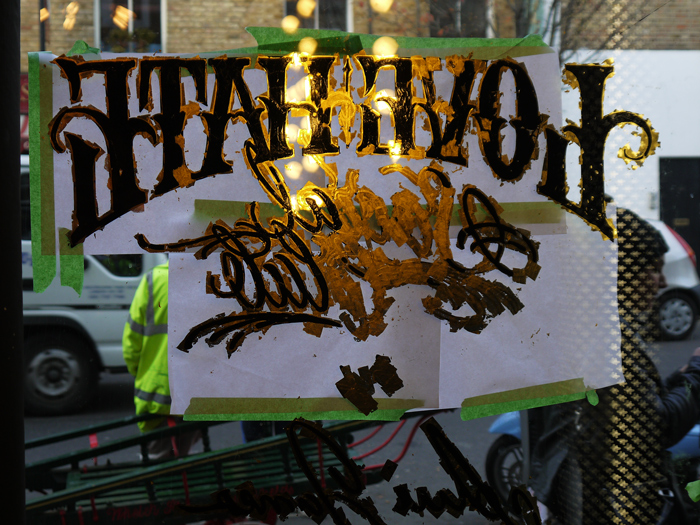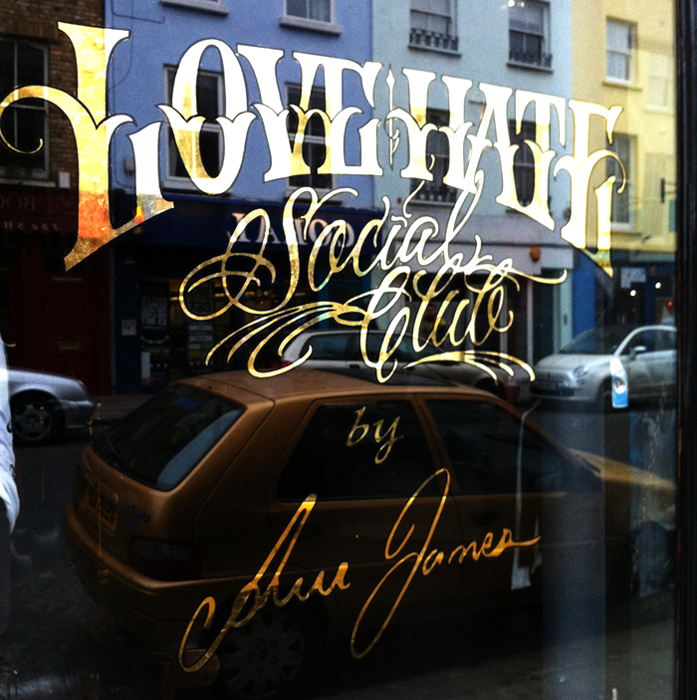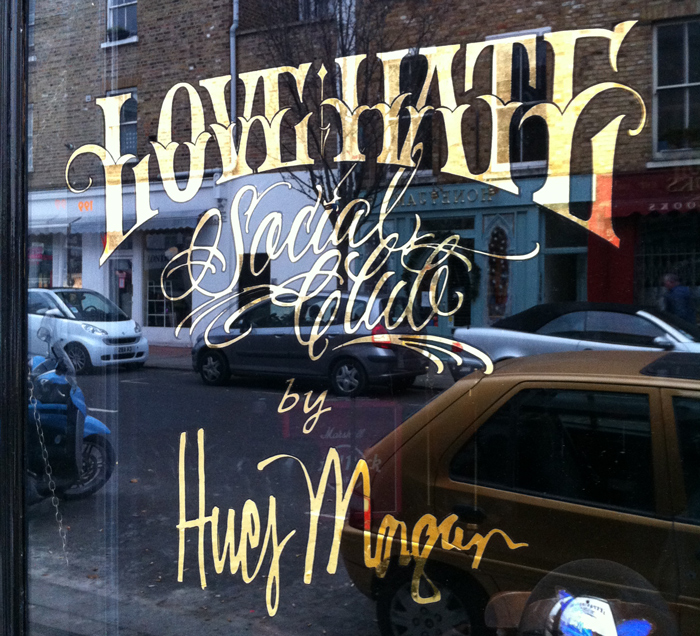
I'd like to share some work in progress going on in Notting Hill, here in the U.K.
Sign Writer is Nick Garrett. I've just started to learn the trade. I'm currently studying Graphic Design at University for the Creative Arts in Epsom.
Design was sketched by Ami James, one of the co-owners of the shop.
The new studio is the latest venture for the Miami Ink and NY ink tattoo artists.
- 23ct victorian gold leaf
Nice design. A lot of tattoo artists seem to have a good sense of lettering, as is evident in her design. Any idea if it was a font he adapted or if it was rendered by hand?
I hope you'll be able to share pictures of the window when it's completed.
It was sketched by the tattoo artist.
He also sketched the fascia design which is also in gold leaf. I'll upload photos of that and the finished windows too.
There were subtle tweaks that Nick made when drawing up the designs in situe, using his own experience and flair to bring the sketch to life. Extra little flourishes and some stroke thicknesses were subtly changed by him.
I have some shots from the outside now. We painted next door's Fascia today.
- Happy client
- Nick painting next door
- Up close
- Right window
- Left window
Great design & execution by the way!
Nick Garrett is the man behind the execution so I can't take any credit there.